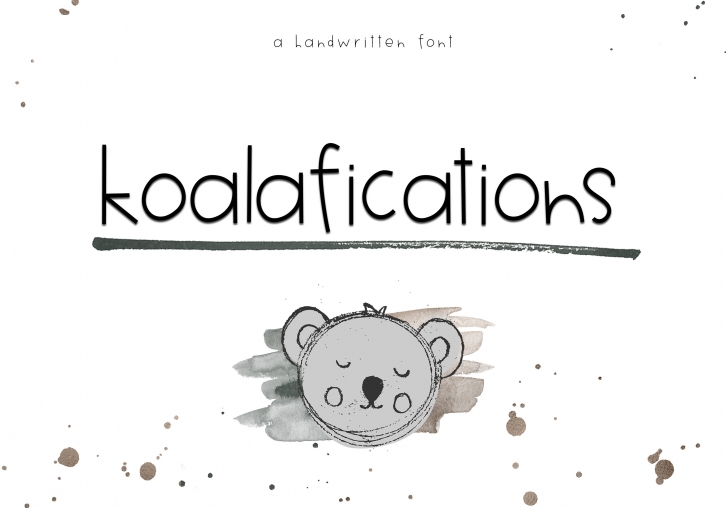
Koalafications is a cute handwritten font.
This font is perfect for quotes, headings, blogs, logos, invitations and more!
It is especially useful for children's designs, tee shirts, mugs and posters!
This font does include accent characters.